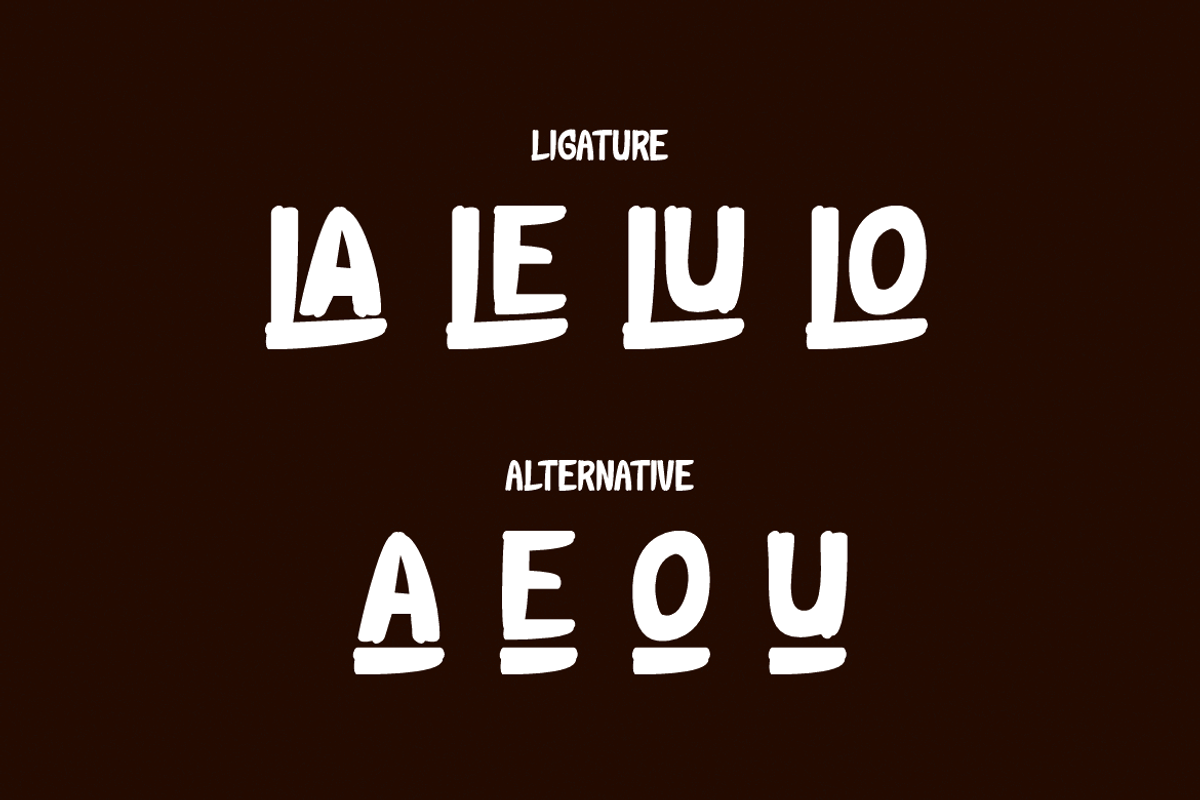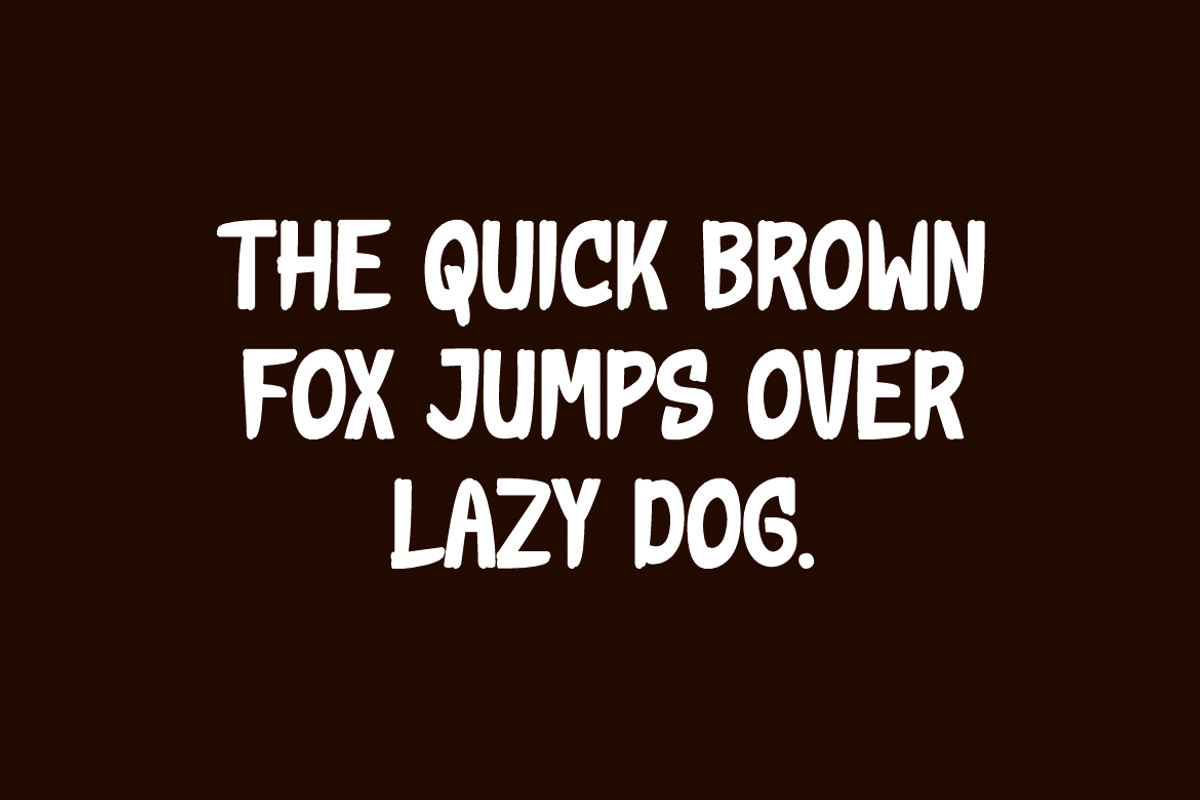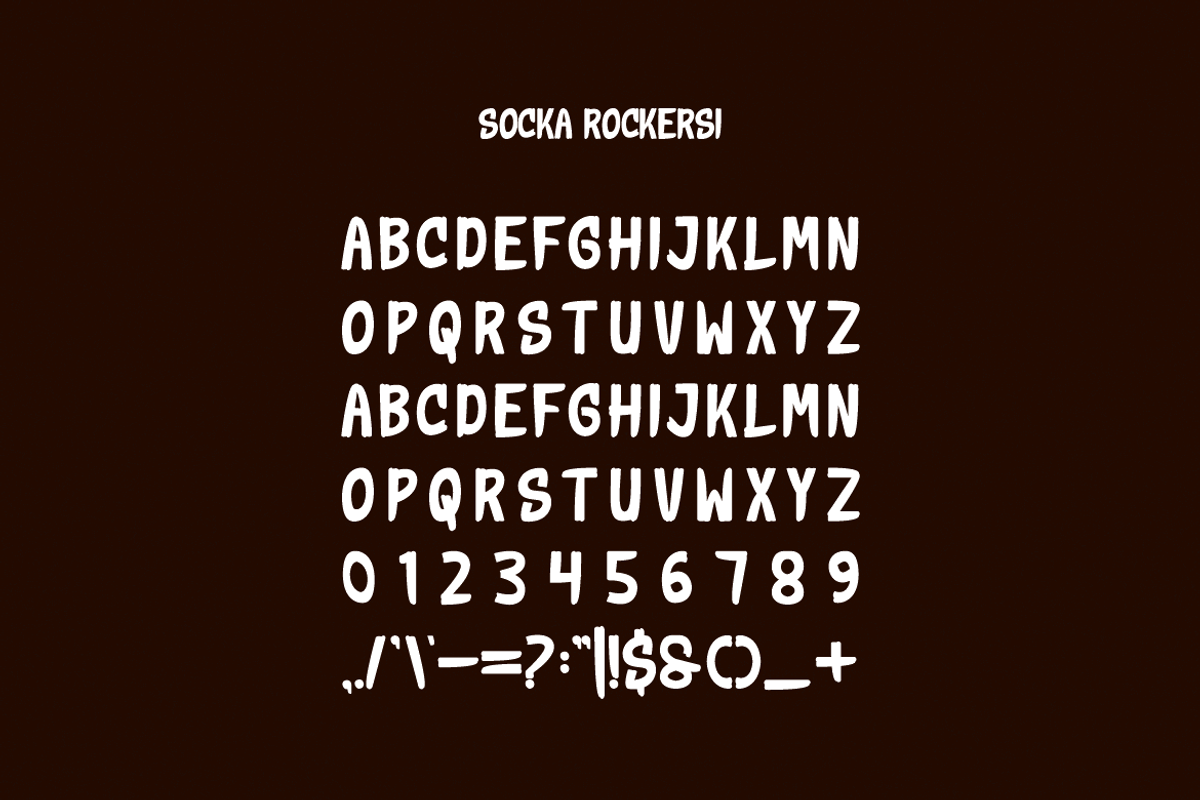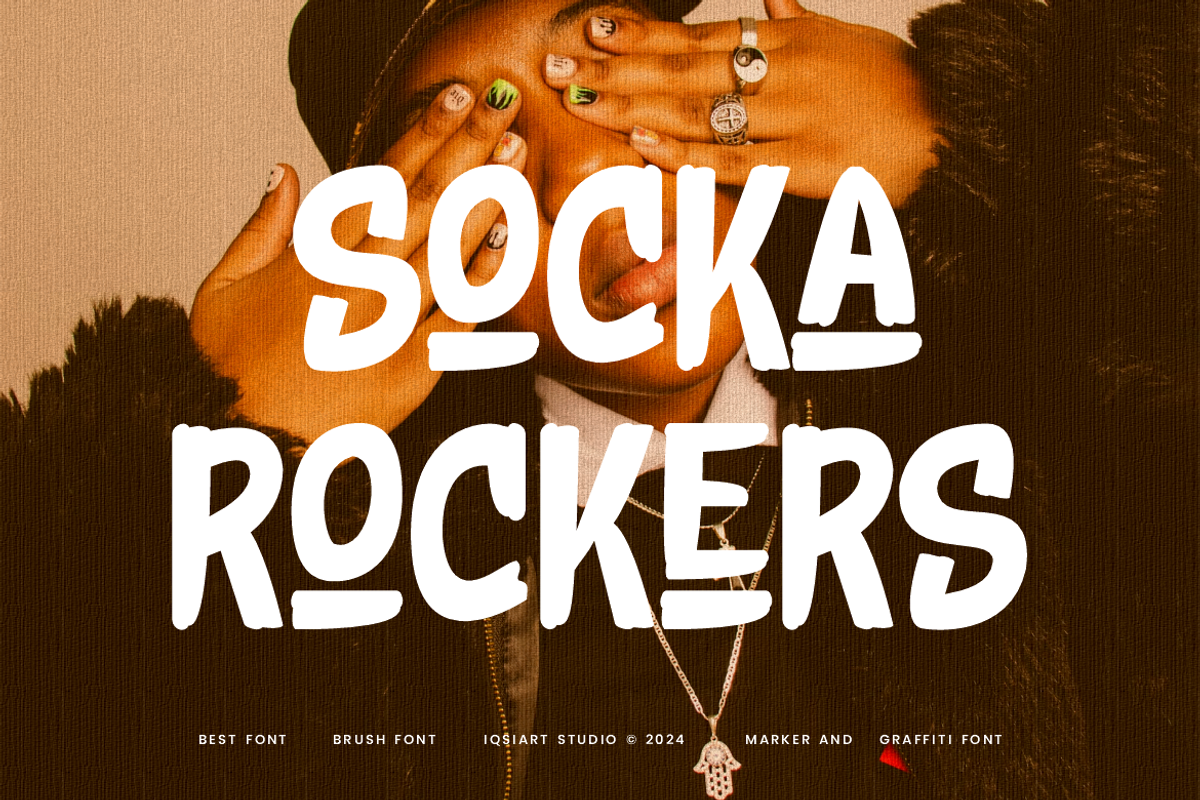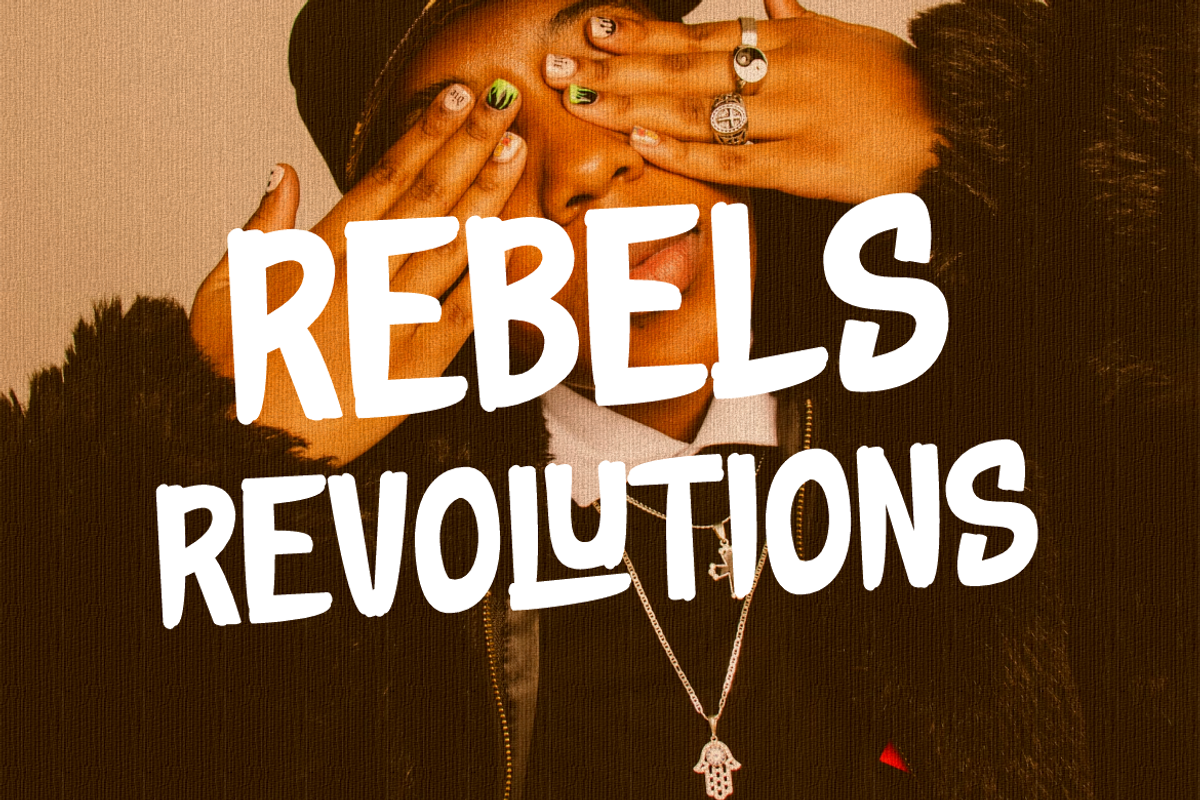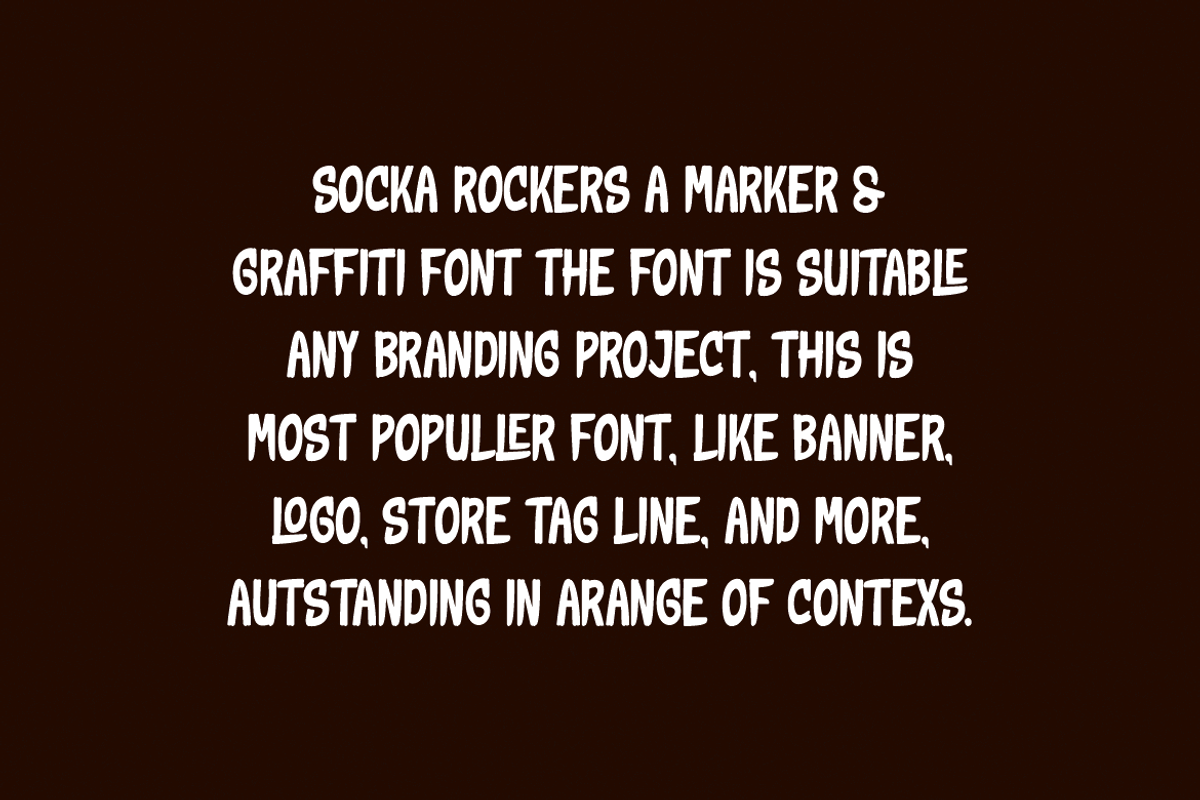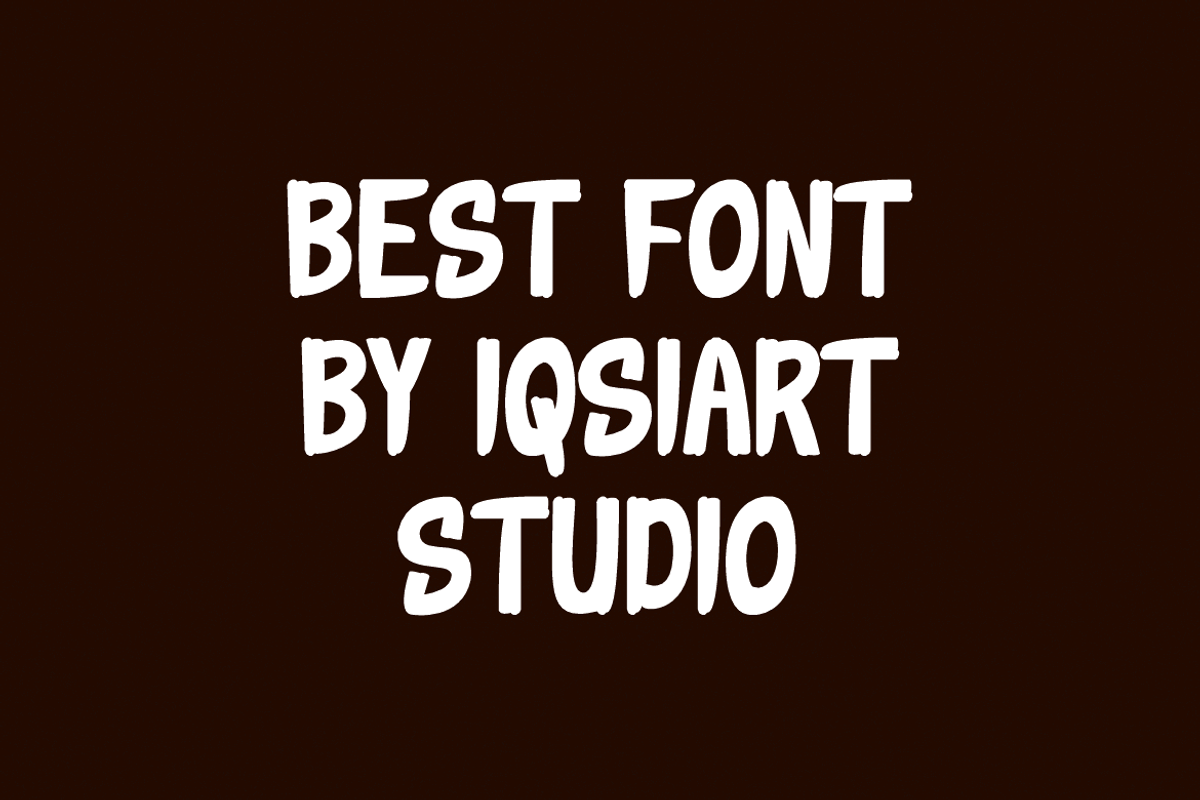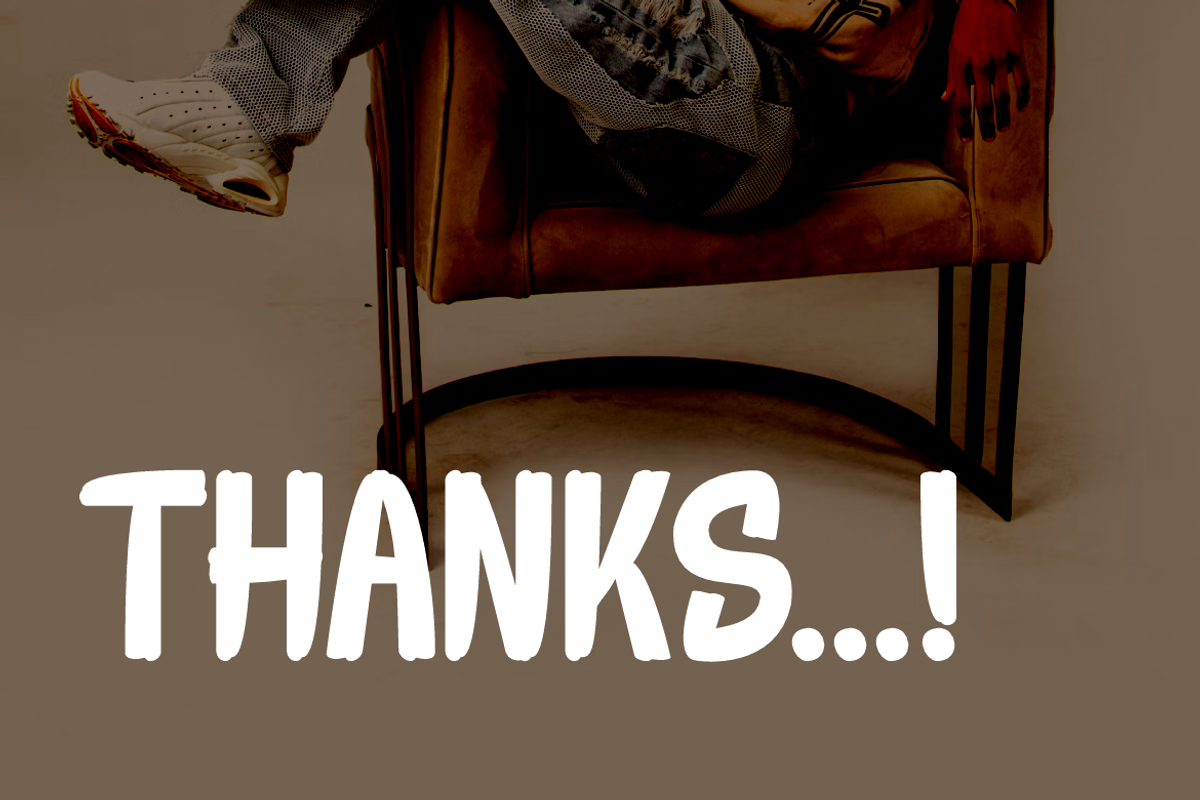
Socka Rockers - Marker & Chalk Font
Socka Rockers Font is a best and authentic display font. This font can be used for your various needs. We provide various themes and font styles. visit our profile to get a wide variety of themes and different font styles you need.